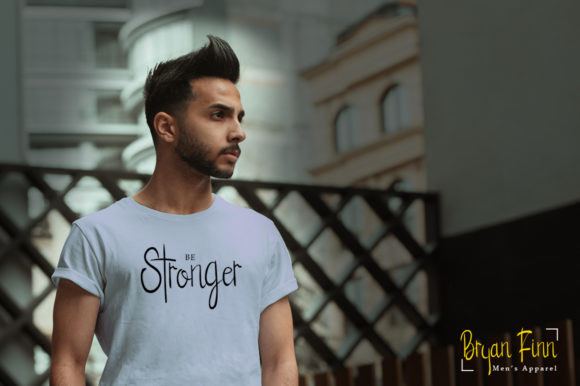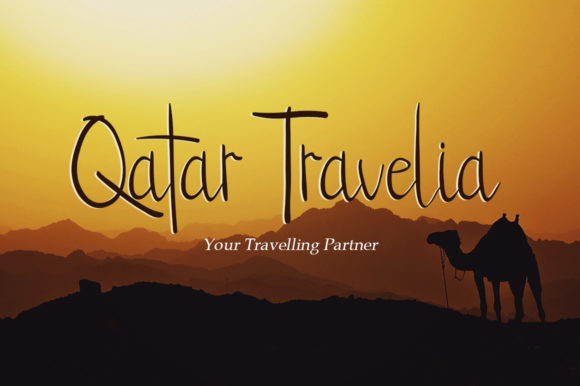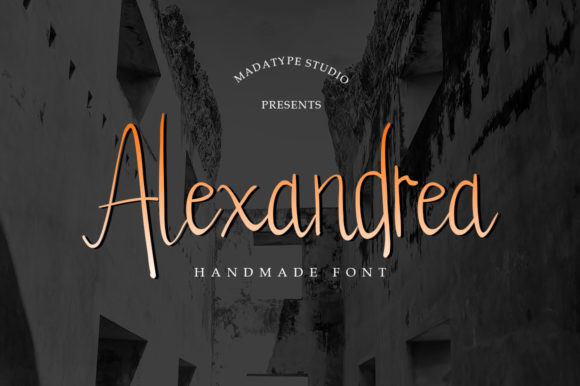
Alexandrea Font
Alexandrea is a beautiful and sweet handwritten font with an authentic feel. It will effortlessly add a personal touch to any creative project!